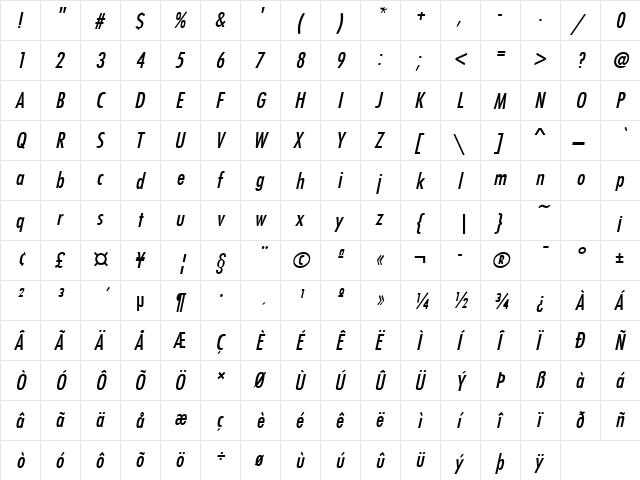
FunctionCond Italic
Design Context for FunctionCond Typeface
FunctionCond trades formality for fun, with bouncy, characterful letterforms that bring warmth and energy to any project. Its italic angle brings a sense of urgency and motion to the letterforms.
Great for children's books, toy packaging, family event branding, and casual consumer-facing design.
Font Pairing: Pairs well with a rounded or humanist sans for body copy, maintaining the friendly tone without relying on FunctionCond to carry extended reading.
Pro Tip: Avoid using FunctionCond for long passages of text — it works best for headlines, labels, and short calls to action.